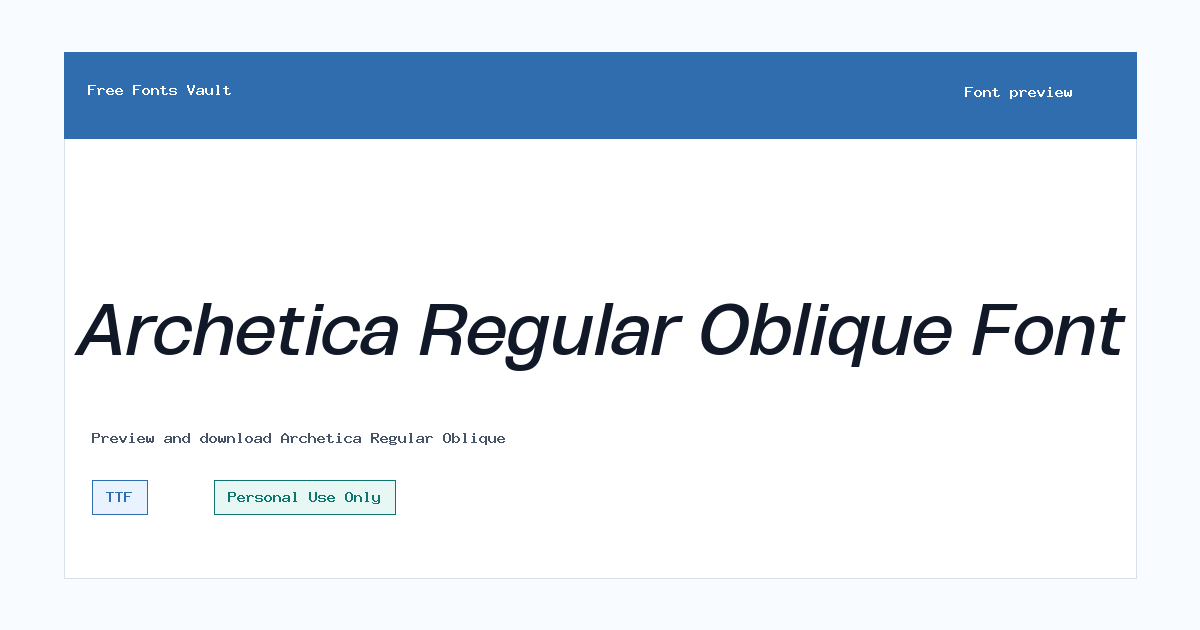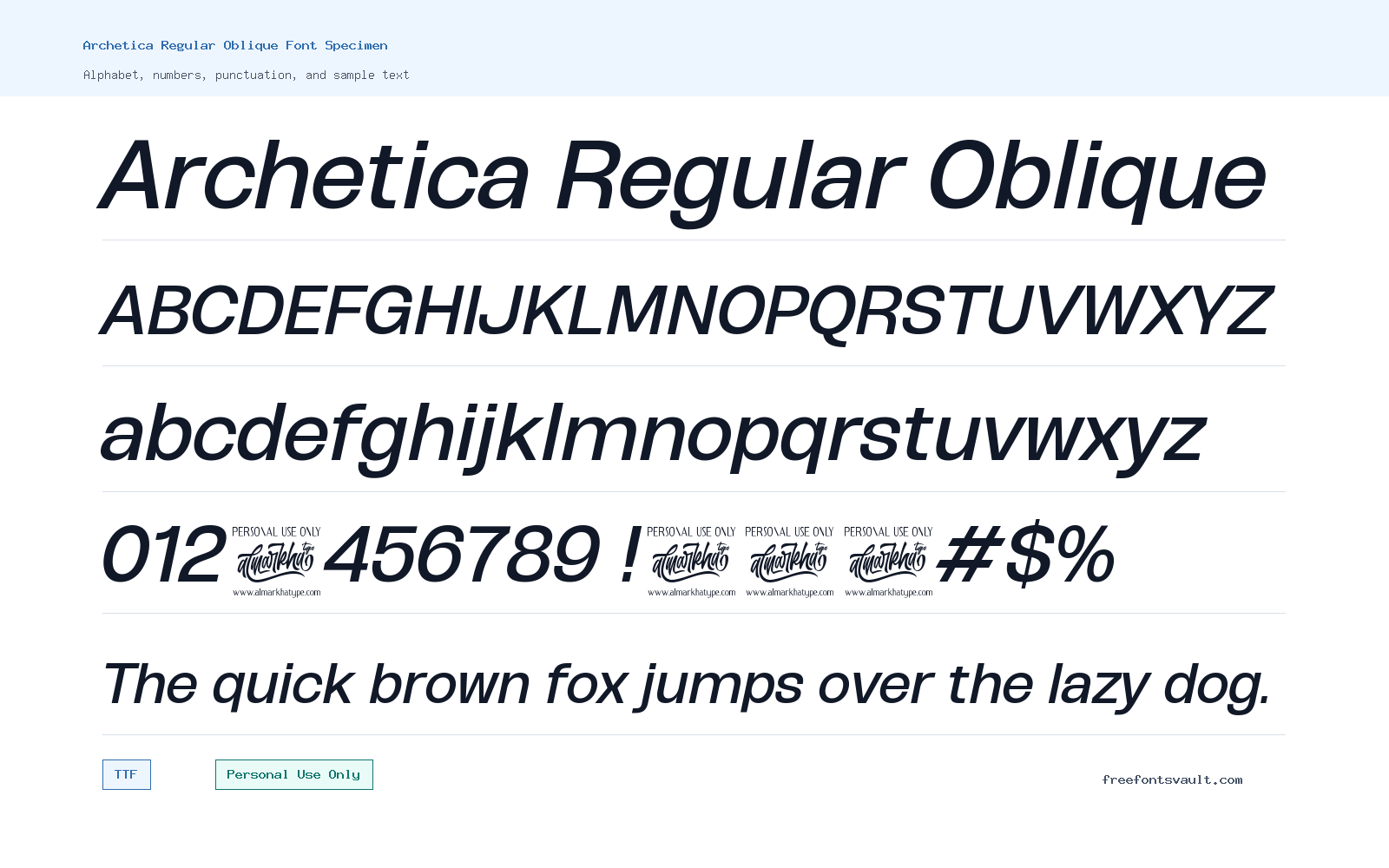
Archetica Regular Oblique
Archetica Regular Oblique is a slanted sans serif font style from the Archetica family, designed for personal-use projects where a clean italic look is needed.
About Archetica Regular Oblique
Archetica Regular Oblique has a regular-weight structure with an italic-style slant, giving text a forward-leaning feel without making it too heavy. Because the listed style is 400 weight and italic, it is best treated as a practical oblique companion rather than a bold display face. It can work well when you want emphasis, movement, or a slightly sharper tone in headings, labels, short descriptions, and preview text.
• Regular 400 weight with an italic or oblique slant
• Sans serif style suited to short text, emphasis, and display previews
• Works as a useful accent style in branding drafts, posters, web mockups, and social graphics
• Logo concepts and wordmark drafts where a clean slanted sans serif look is useful
• Poster headlines, event graphics, and short promotional text
• Website mockups, hero sections, navigation accents, and UI presentation screens
• Social media posts, quote cards, banners, and thumbnail text
• Pairing with upright sans serif fonts when you need contrast without changing the overall tone
What kind of font is Archetica Regular Oblique?
It is a sans serif font style with a regular 400 weight and an italic or oblique slant. That makes it useful for emphasis, short headings, display text, and design mockups.
Is this font good for long paragraphs?
It may be better for short text than long reading sections because slanted styles can become tiring at small sizes. Test paragraph spacing and readability carefully if you want to use it beyond headlines or accents.
How should I pair Archetica Regular Oblique with other fonts?
Pair it with a clear upright sans serif for body text or supporting details. Let Archetica Regular Oblique handle emphasis, short titles, captions, or highlighted words so the layout stays readable.